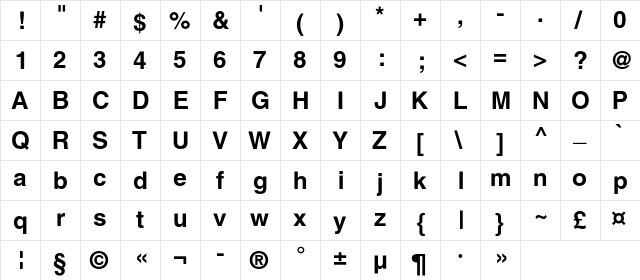
HeliosC Bold Font Preview
HeliosC Bold
Design Context for HeliosC Typeface
HeliosC takes a measured approach to typography — its balanced proportions and neutral character make it a reliable workhorse for both digital and print work. Its bold stroke weight gives it real presence on the page.